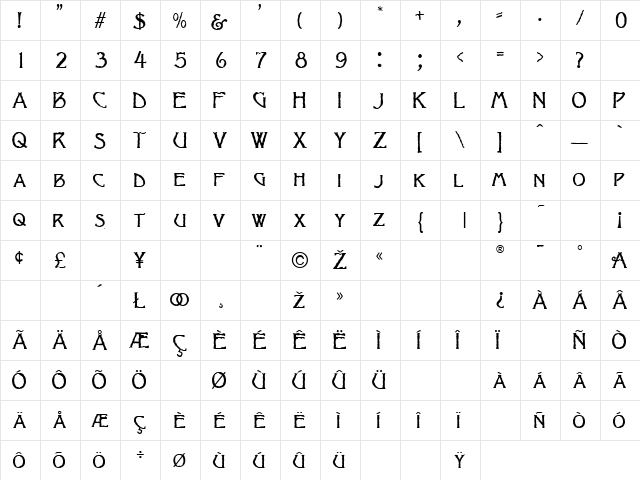
Jagged Light
Design Context for Jagged Typeface
Jagged takes a measured approach to typography — its balanced proportions and neutral character make it a reliable workhorse for both digital and print work. The delicate stroke weight brings airiness and refinement to layouts.